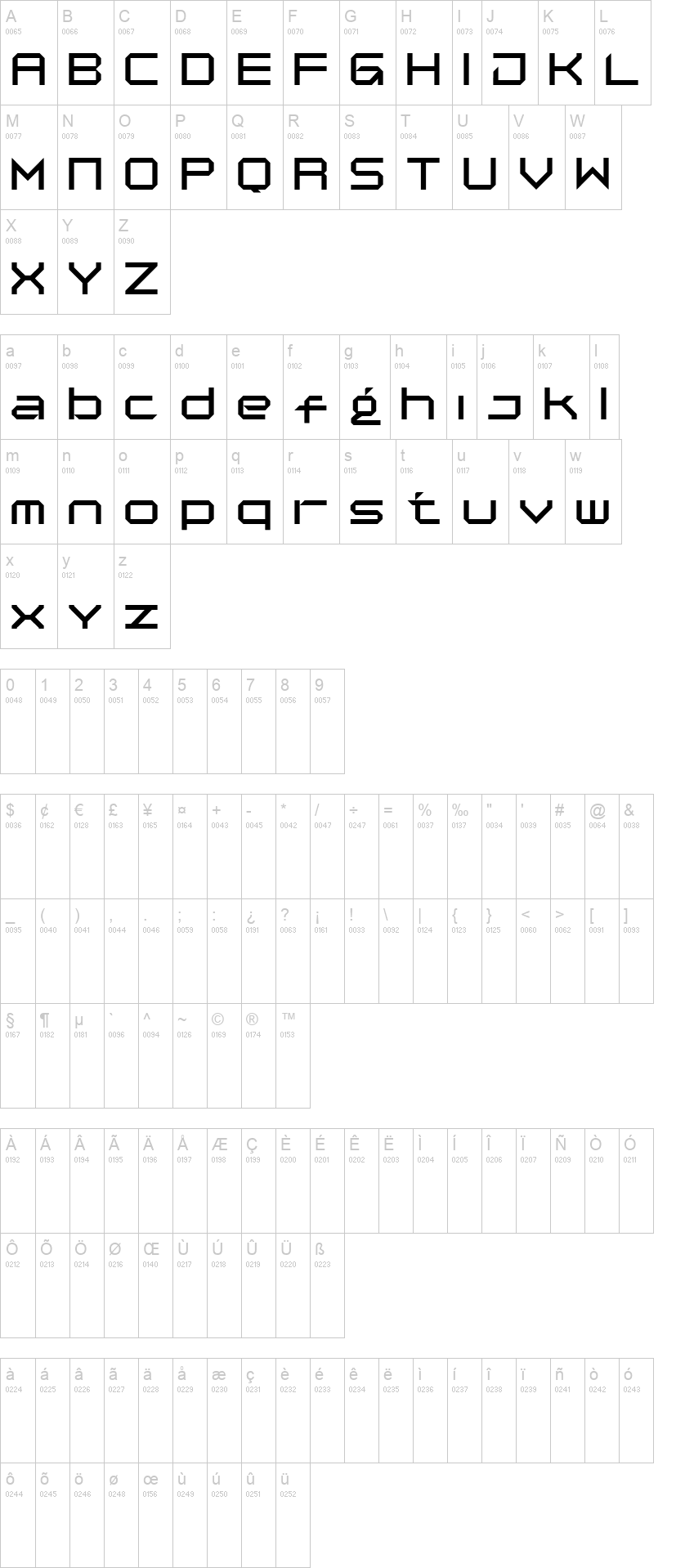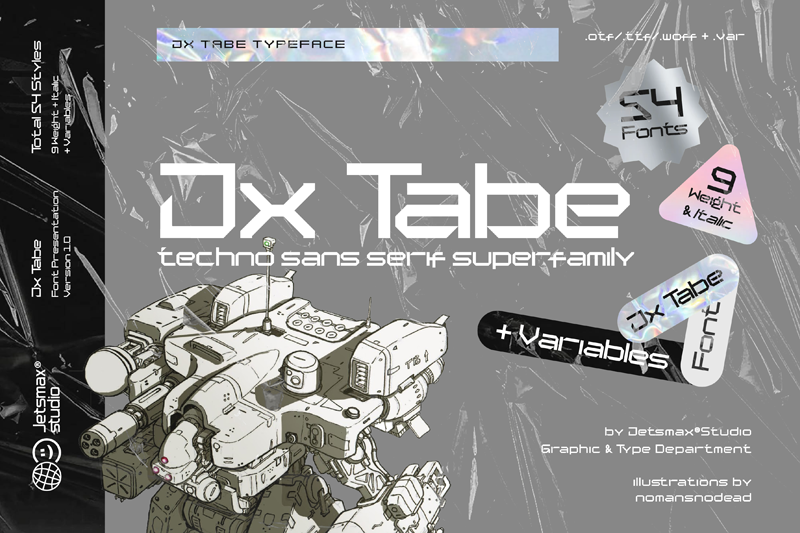
Jx Tabe is New techno sans serif typeface with a superfamily. inspired by robotic, mecha, and aesthetic machine - a font suited for future technology. This multi-purpose typeface will grab the reader's attention with its stylish and neat design. With 9 Weight + Italic and 2 Width Condensed and Expanded, With a total of 54 styles, it's a timeless workhorse for many possible applications from branding to editorial.